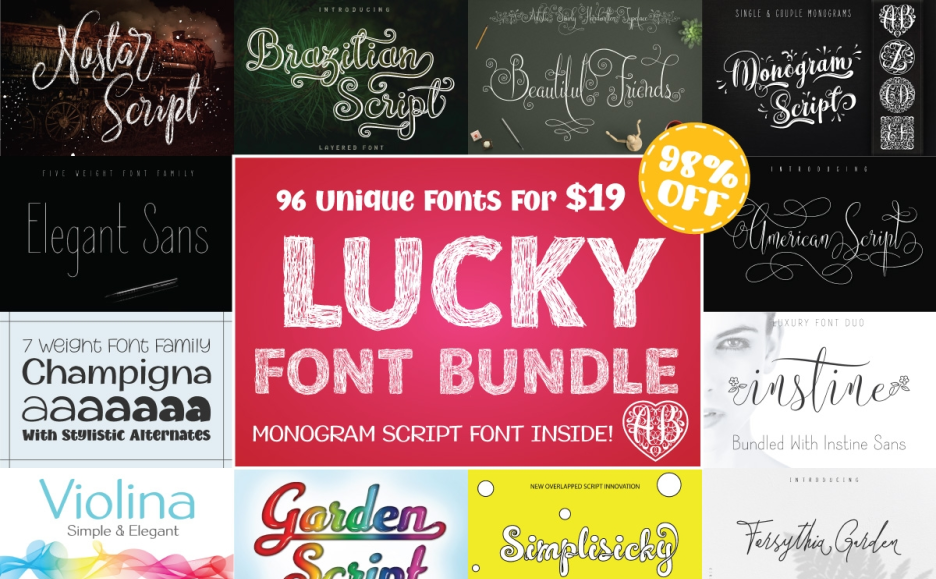
Lucky Font Bundle
The Lucky Font Bundle is a carefully curated collection of unique typefaces designed to elevate your creative projects. This bundle features a variety of styles, including script, serif, and sans-serif fonts, each crafted to bring a distinct personality to your designs.
• Diverse font styles: script, serif, sans-serif
• Script Fonts: Perfect for invitations, greeting cards, and branding.
• Serif Fonts: Ideal for print materials, editorial design, and logos.
• Sans-Serif Fonts: Great for web design, user interfaces, and modern branding.
• Combine different styles for a dynamic look in your projects.
• Utilize the script fonts for personal touches in your designs.
• Experiment with weights to create visual hierarchy in your layouts.